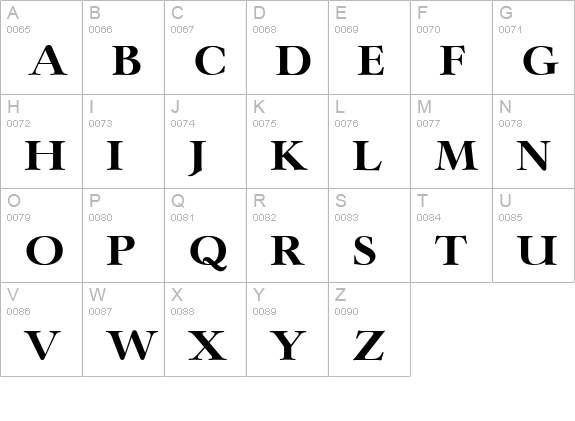
Terono Display SSi Font Details
Terono Display SSi font is a unique and versatile typeface that is perfect for adding a touch of elegance and sophistication to any design project. With its sleek and modern letterforms, this font is sure to make a statement and captivate viewers. This font features a clean and crisp appearance, making it easy to read and suitable for a wide range of applications. Whether you're designing a logo, creating a poster, or crafting an eye-catching headline, Terono Display SSi font is the perfect choice to make your text stand out. One of the best aspects of Terono Display SSi font is that it is free to download. You can easily access this stunning font at FontsMarket.com, a reliable and reputable website for all your font needs. By offering this font for free, the creators of Terono Display SSi font have made it accessible to designers of all levels, from beginners to professionals. The versatility of Terono Display SSi font is truly remarkable. It can be used in a variety of design projects, including print and digital media. Whether you're designing a website, a magazine layout, or a corporate brochure, this font will add a touch of elegance and sophistication to your work. The characters in Terono Display SSi font are meticulously designed, with attention to detail and precision. Each letterform is carefully crafted to ensure a harmonious balance between legibility and aesthetics. The result is a font that is not only pleasing to the eye but also easy to read. The versatility, elegance, and free availability of Terono Display SSi font make it a must-have for designers looking to elevate their work. Download this font today at FontsMarket.com and unlock the endless possibilities it has to offer.